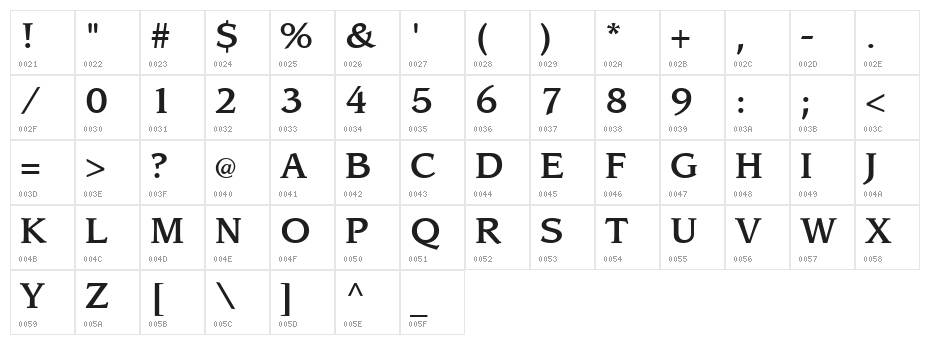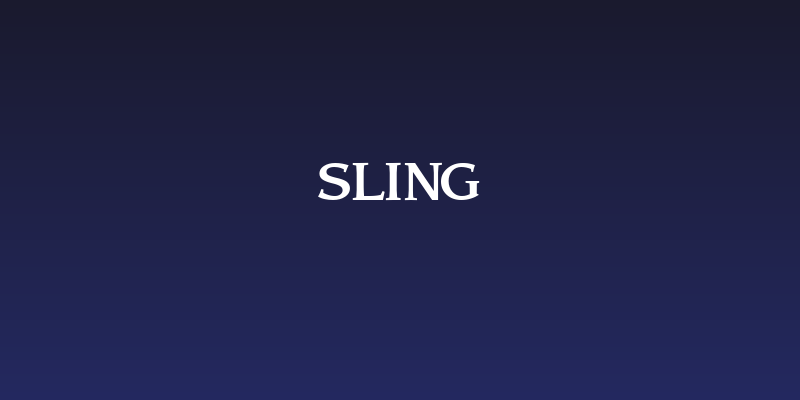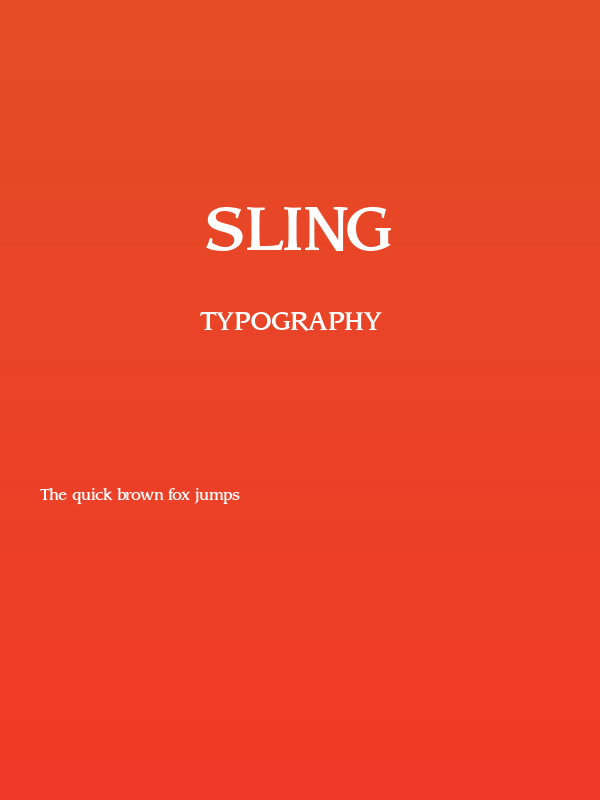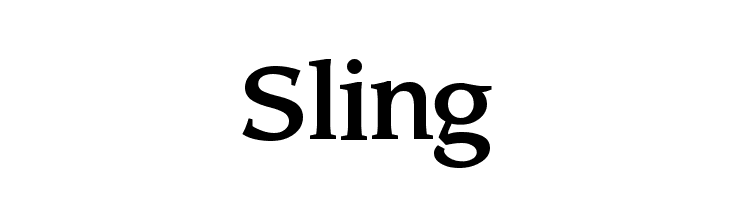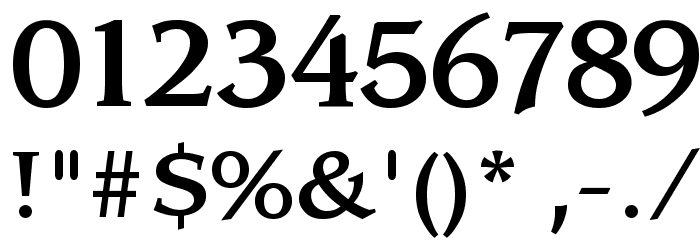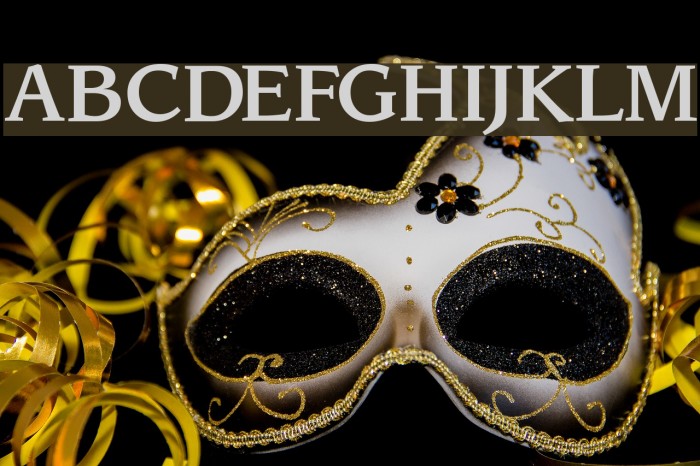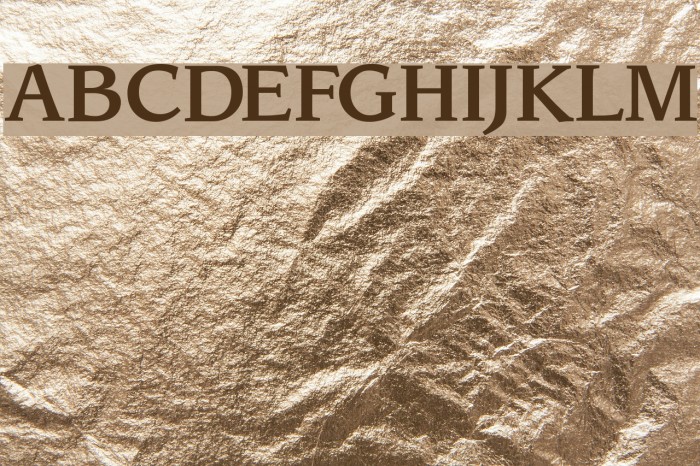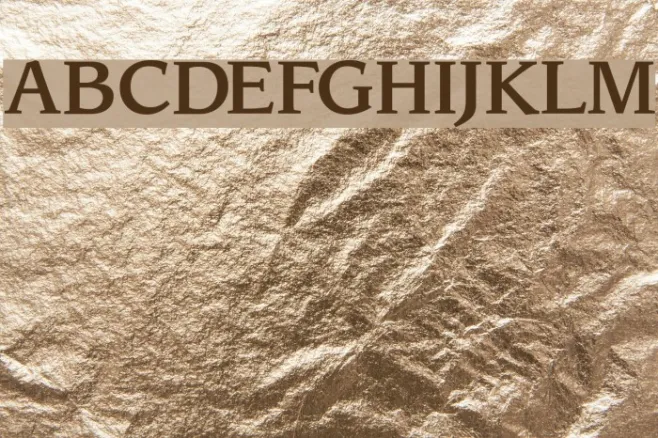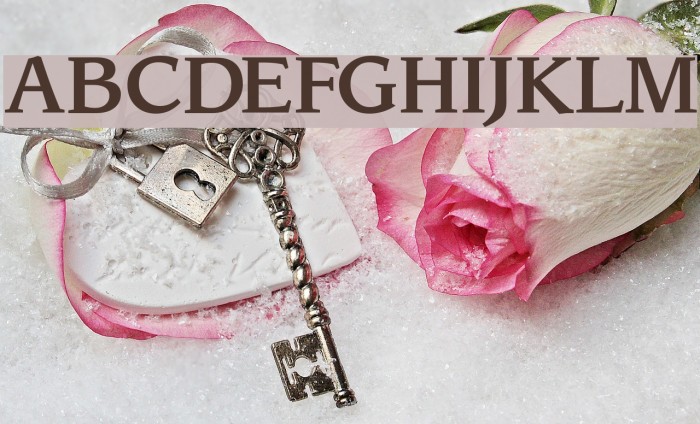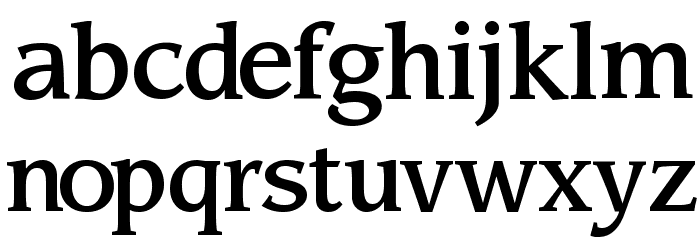
Sling Font
Sling Description
This font exhibits a classic serif style with strong, elegant lines and a traditional appearance. The serifs are pronounced, providing a sense of formality and sophistication. The uppercase letters are bold and commanding, while the lowercase letters maintain a balanced and readable form. The numerals are consistent with the overall style, offering clarity and precision. Special characters are well-integrated, maintaining the font's cohesive aesthetic. The overall design is suitable for conveying a sense of authority and timelessness.
| Overall Style | Classic |
| Use Case | Headlines, Body text, Logos |
| Proposed Projects | Ideal for editorial design, book covers, formal invitations, and corporate branding. |